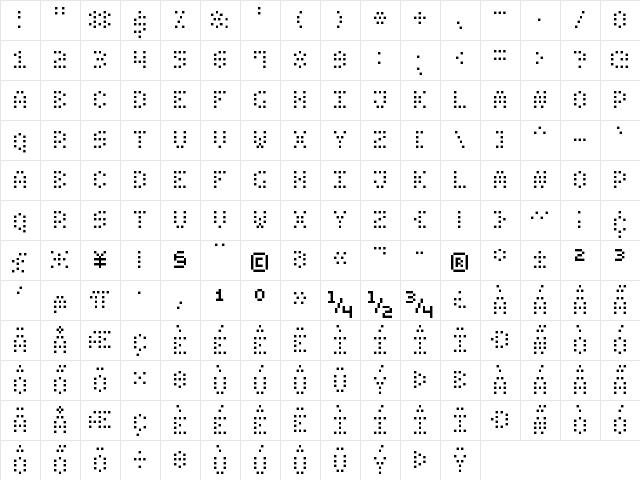
Small Dot Digital-7 Regular
Design Context for Small Dot Digital-7 Typeface
Small Dot Digital-7 has a distinctly futuristic character, with geometric precision and clean angles that feel at home in technology, gaming, and sci-fi contexts.
Pro Tip: Use Small Dot Digital-7 in combination with a neutral sans for body text. Let it define the brand voice in headlines while keeping reading comfortable elsewhere.